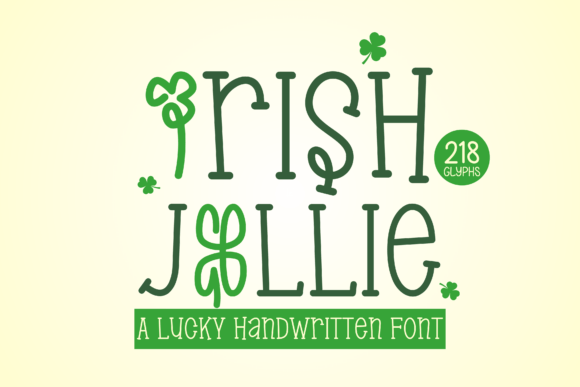
Bring a Little Luck to Your Designs
There’s nothing quite like the feeling of finding that perfect font to elevate your creative project. You’ve spent hours pouring your heart and soul into the design, and then, suddenly, the right typeface comes along and brings it all together. For designers looking to add a touch of festive cheer to their work, we’ve got just the thing: Irish Jollie Font.
This charming handwritten font is more than just a pretty face – it’s a professional-grade tool that’s designed to help you create stunning seasonal designs with ease. With its clean strokes, adorable clover details, and seamless multilingual support, Irish Jollie Font is the perfect choice for anything from St. Patrick’s Day merchandise to festive greeting cards.
Irish Jollie Font Key Features
- Font Family: Irish Jollie Font
- Character Set: Supports a wide range of languages, including Latin-based scripts and some Cyrillic characters.
- Unique Characteristics: Features a unique, hand-drawn design with a playful and whimsical feel, making it ideal for creative and artistic projects.
Designer Review: Irish Jollie Font
The Irish Jollie Font is a unique and charming addition to any typographic collection. It’s clear that the designer has put thought into creating a font that captures the whimsy and playfulness of Irish culture.
- The font’s quirky, handwritten feel is sure to add a touch of personality to any design.
- The subtle flair and flourishes on the letters add a sense of movement and energy.
- The font is highly legible, even at smaller sizes, making it suitable for a range of applications.
However, there are a few areas where the font falls short.
- The font may be too playful for more formal or corporate designs, where a more traditional look is desired.
- The lack of italic and bold weights may limit the font’s versatility in certain situations.
- The font’s irregularities may not be suitable for designs that require a high degree of precision or consistency.
Overall, the Irish Jollie Font is a delightful addition to any typographic collection. While it may have some limitations, its unique charm and playful personality make it a great choice for designers looking to add a touch of whimsy to their work.
For best results, use Irish Jollie Font for titles and headings, as it is a decorative font.
Irish Jollie Font is ideal for:
Special occasion cards and gifts
Restaurant and cafe menus
Party and event invitations
Tips for Getting the Most Out of Irish Jollie Font
1. Use Irish Jollie Font sparingly to avoid overwhelming your design.
2. Pair Irish Jollie Font with a clear and readable font for body text.
3. Experiment with different font sizes and colors to create
Alternatives to Irish Jollie Font
Lobster is a modern, cursive script font that is ideal for use in titles, headings, and short paragraphs. It has a similar feel to Irish Jollie Font, but with a more contemporary look.
Comparison: Lobster is more legible and versatile than Irish Jollie Font, making it suitable for a wider range of applications.
Great Vibes is a elegant, cursive script font that is perfect for use in formal and informal projects. It has a similar feel to Irish Jollie Font, but with a more sophisticated look.
Comparison: Great Vibes is more refined and polished than Irish Jollie Font, making it suitable for use in high-end projects and applications.
Aleo
Aleo is a modern, cursive script font that is ideal for use in titles, headings, and short paragraphs. It has a similar feel to Irish Jollie Font, but with a more playful and dynamic look.